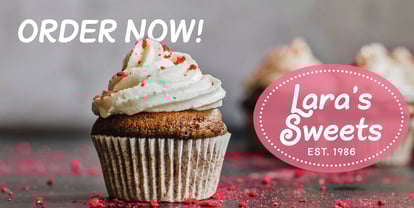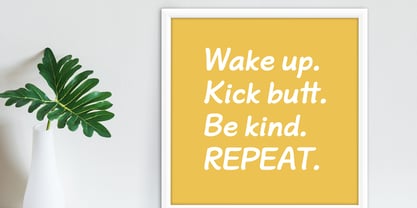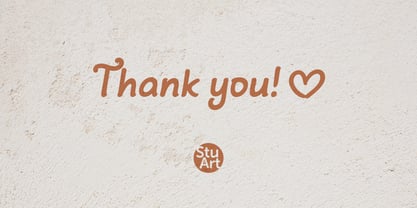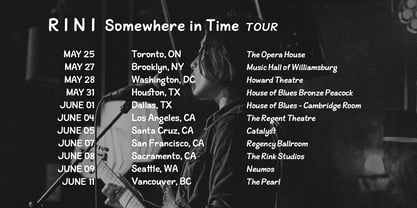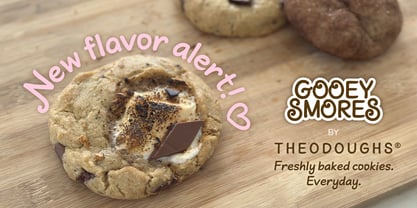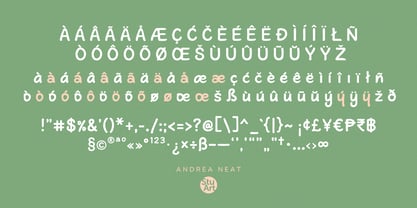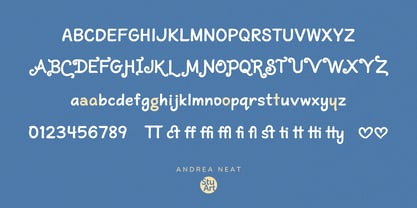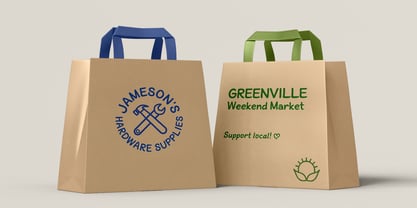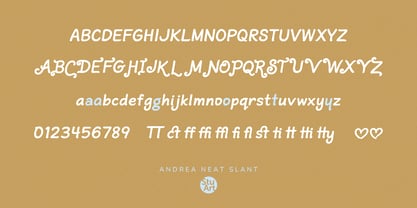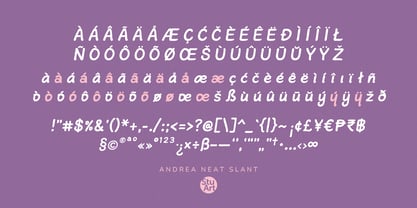
Andrea Neat
The Andrea Neat Font Family was designed by Andrea Stuart and published by StuArt. Andrea Neat contains 2 styles and family package options.
An iteration of StuArt's Andrea Handwriting series, Andrea Neat is, you guessed it, a neatened version of the earlier variants, available in upright and slant. It is also thicker in weight which makes it better suited for branding and other uses that call for more oomph! Charming, clean and easy on the eyes, it offers multilingual support and open type features like ligatures, swash alternates for all uppercase characters, and stylistic alternates for some lowercase letters. Used in all caps, the font looks especially neater; in lowercase, it feels casual and fun. With the uppercase swash alternates, the versatility of this font is off the charts! Enjoy!